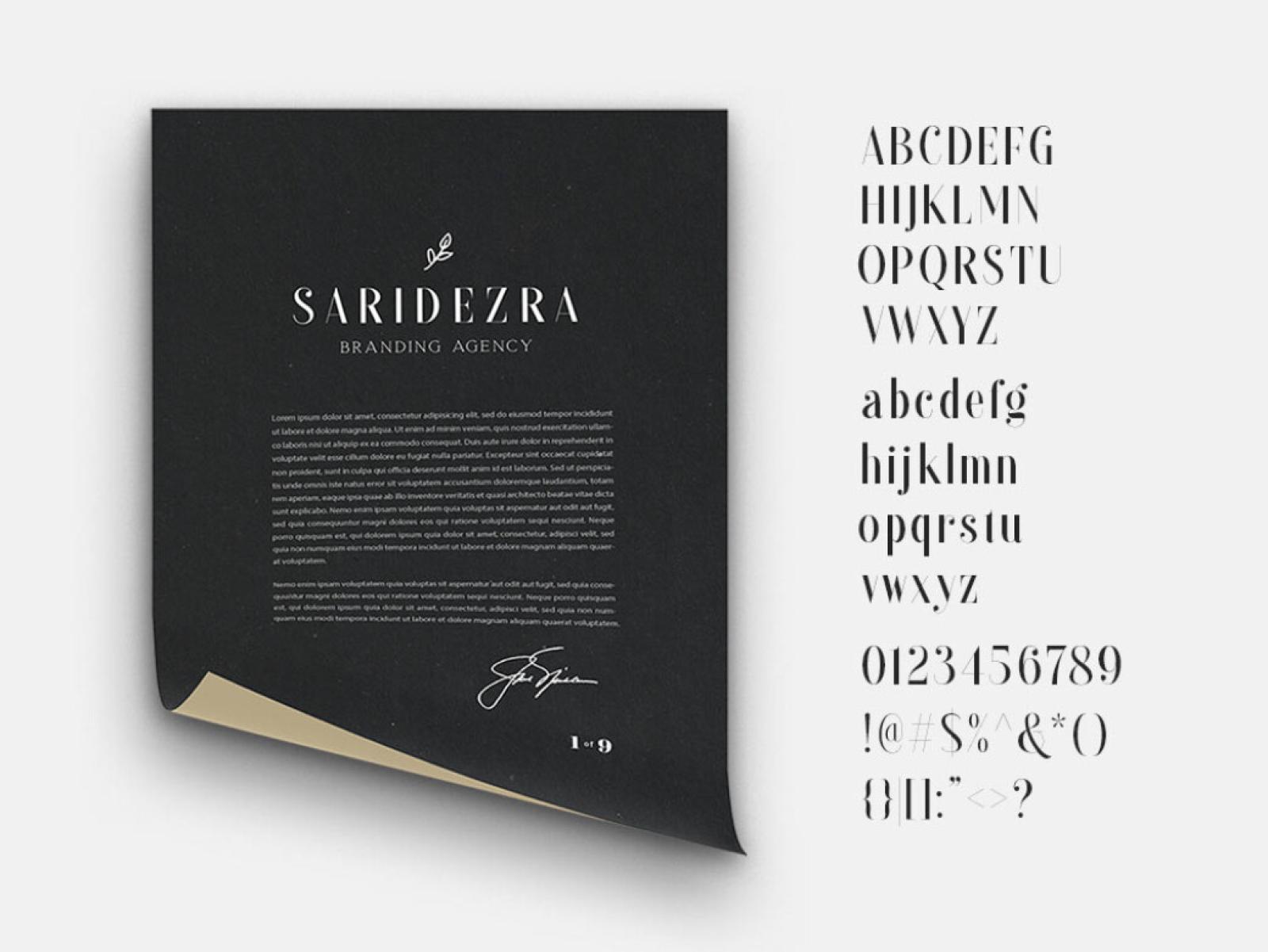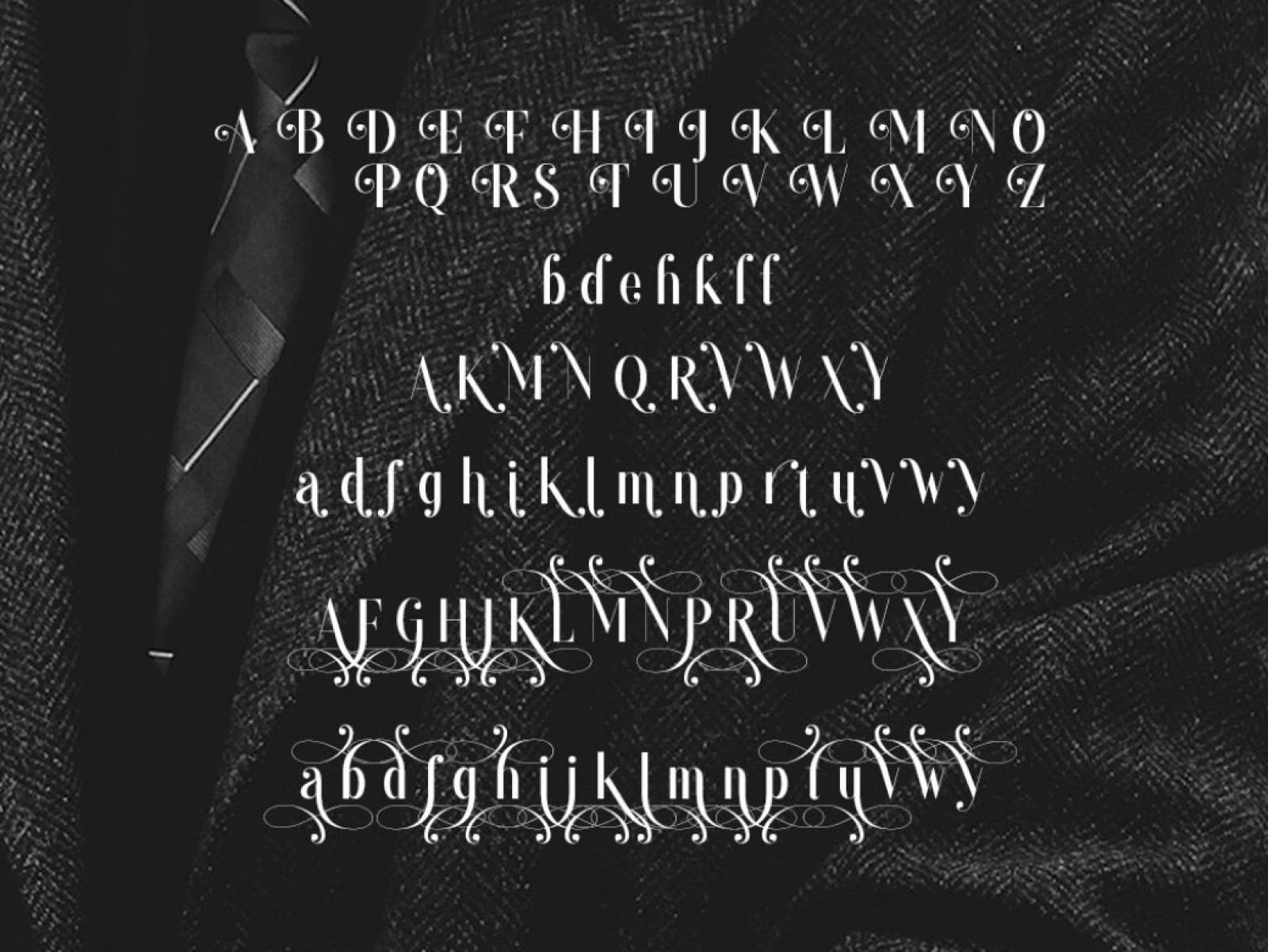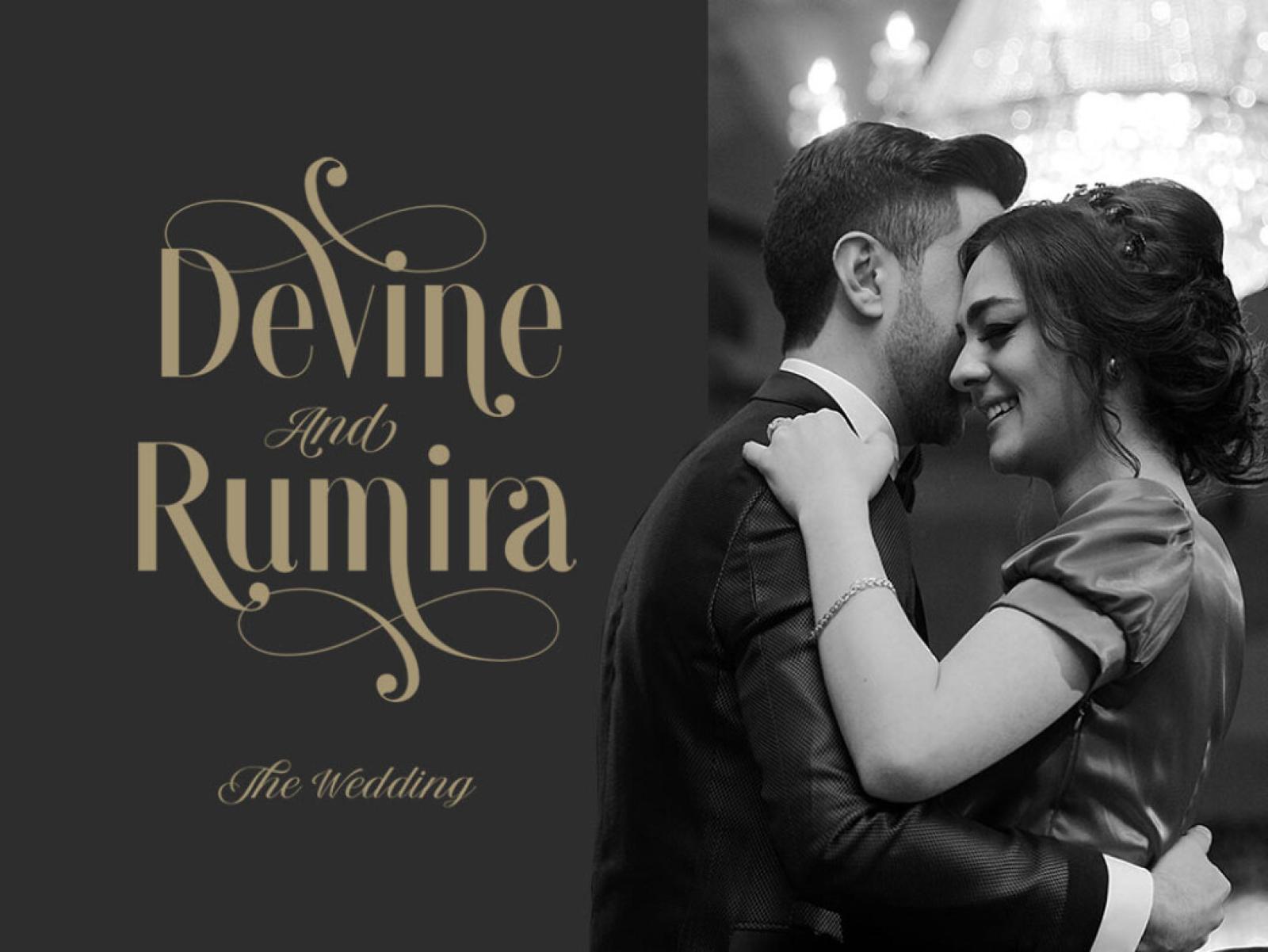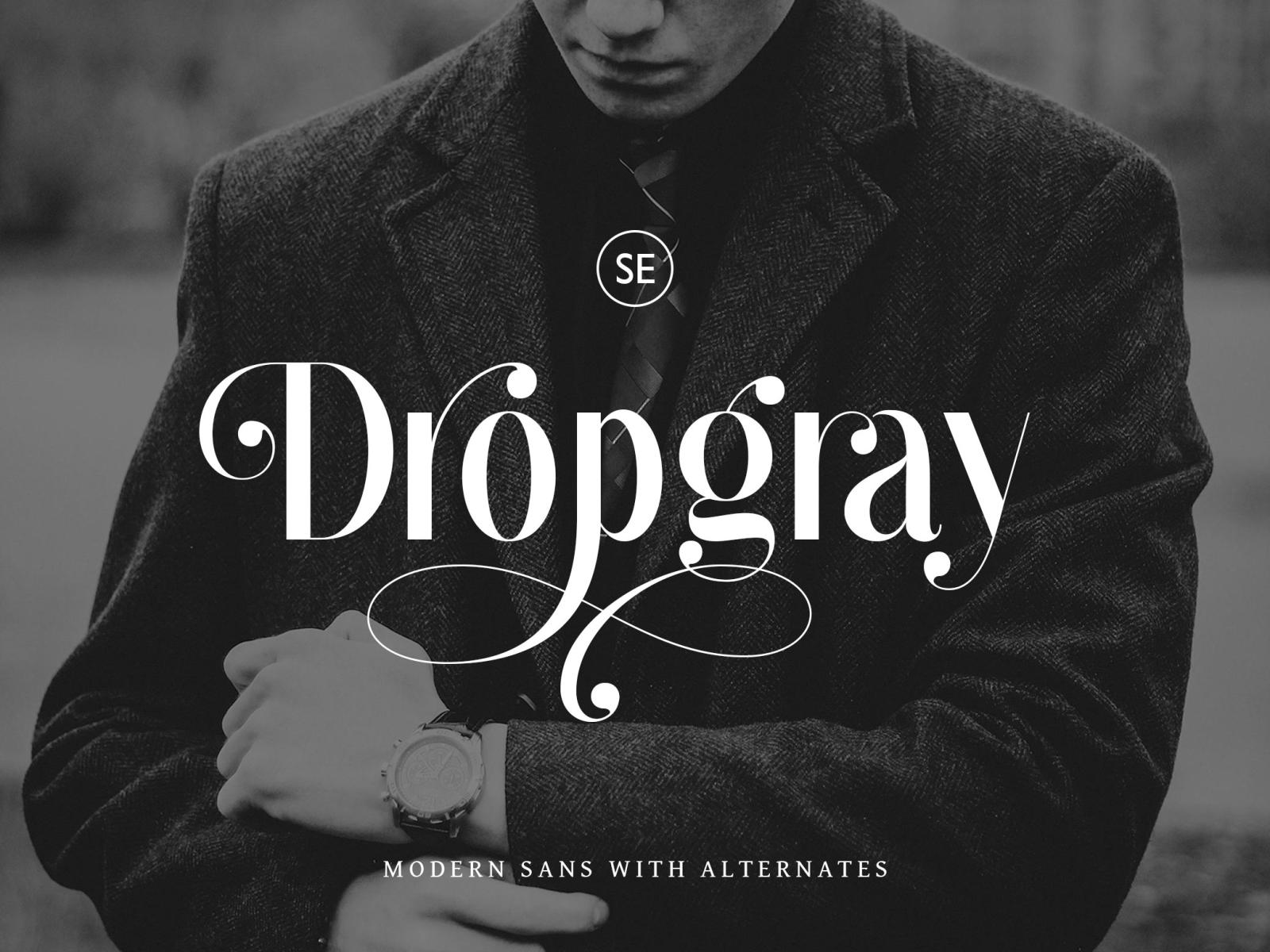
Dropgray Sans Serif Font
Introducing Dropgray - an elegant sans serif font with a bunch of alternates! Reserved forms and shapes of a truly classic typeface will add the chic and set the required accents.
Let this minimalistic sans serif with alternates make your project presentation or logo design even more stunning! The font has everything you might need: uppercase and lowercase, multilanguage support, numerals, and punctuation. Nothing will look out of place! You just download the font, easily adjust the little things and voila, elegance in its purest form!